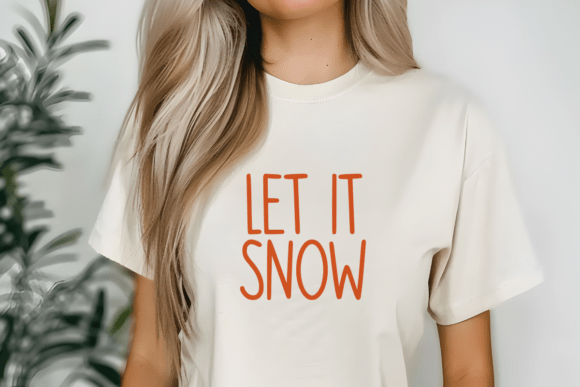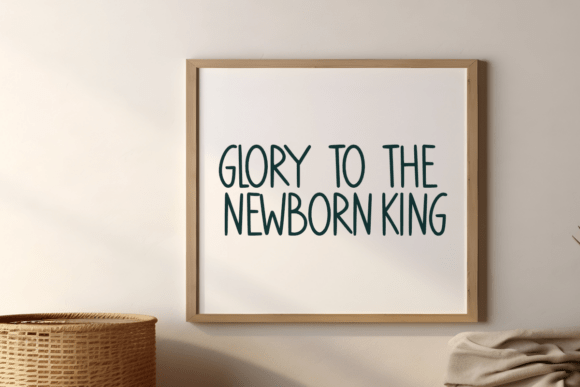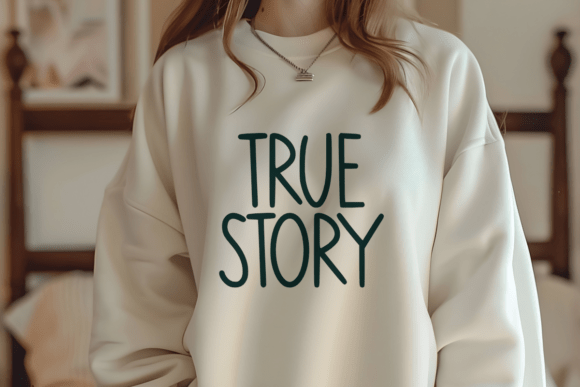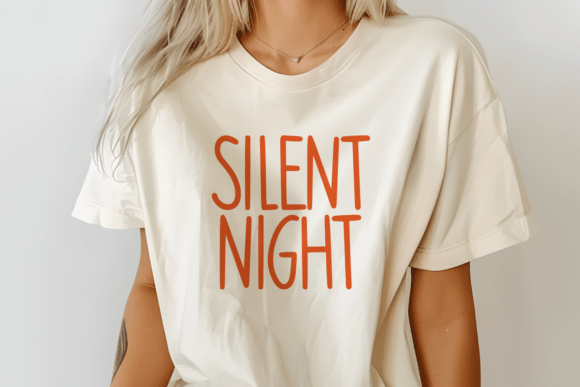
The Magic of Boho Christmas Font: A Designer’s New Best Friend
Ah, the holiday season. A time for joy, giving, and creating stunning designs that capture the essence of the season. I still remember the year I was tasked with designing a Christmas card for a client, only to find myself stuck in a font rut. I wanted something that exuded warmth, playfulness, and a touch of bohemian charm. That’s when I stumbled upon the Boho Christmas font, and let me tell you, it was love at first sight! ✨
So, what makes Boho Christmas font so special? Here are a few things that have won me over:
• ✨ A stunning, handwriting sans serif look that’s perfect for a variety of design projects
• ✅ A playful feel that’s sure to add a touch of whimsy to your designs
• ✅ A natural, effortless vibe that’s perfect for boho-inspired projects
• ✅ Versatility: use it for logos, t-shirts, mugs, invitations, greeting cards, and more!
Of course, no font is perfect, and Boho Christmas has a few minor quirks:
• 🤔 Some users may find the font a tad too casual for very formal projects
• ⚠️ Limited availability of certain OpenType features (but more on that later)
One of the best things about Boho Christmas is its range of OpenType features and glyphs. These allow you to customize your text and add an extra layer of personality to your designs. Some of the features you can expect to find include:
• Stylistic alternates: swap out letters for alternate forms
• Glyphs: access a range of decorative swashes and ornaments
• Ligatures: combine letters for a more elegant look
The Story Behind Boho Christmas
Boho Christmas was designed with the creative hobbyist in mind. The designer, a lover of all things bohemian and festive, set out to create a font that captured the essence of the holiday season. With its natural, effortless vibe and playful feel, Boho Christmas is the perfect choice for designers and crafters looking to add a touch of whimsy to their projects.
Q: What type of projects is Boho Christmas best suited for?
A: Boho Christmas is perfect for a variety of design projects, including logos, t-shirts, mugs, invitations, greeting cards, and more!
Q: Does Boho Christmas come with OpenType features?
A: Yes! Boho Christmas includes a range of OpenType features, including stylistic alternates, glyphs, and ligatures.